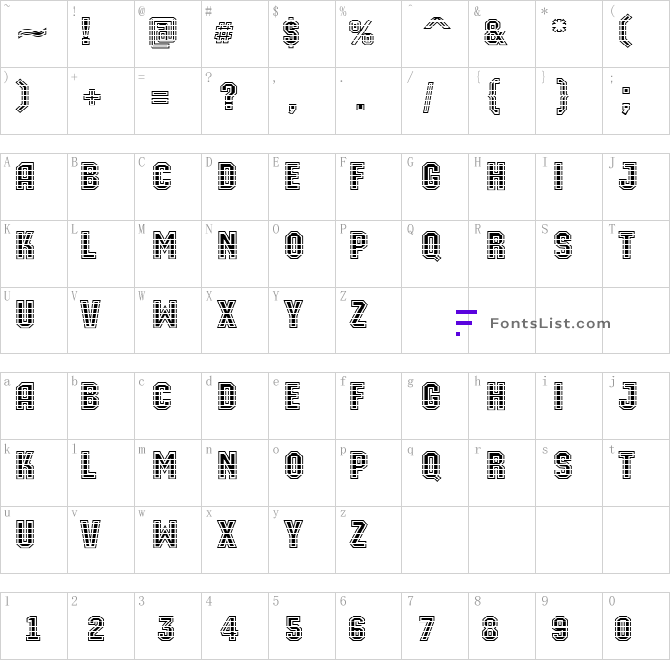
a_MachinaOrtoMltGr-Bold.ttf is a very beautiful artistic font, a_MachinaOrtoMltGr-Bold.ttf is widely used in the design and printing of various books and pictures,a_MachinaOrtoMltGr-Bold.ttf has a strong visual impact,a_MachinaOrtoMltGr-Bold.ttf is a commonly used font in newspapers, magazines and books, and is used in posters, e-commerce Poster design, store design, logo design, font design and other fields.a_MachinaOrtoMltGr-Bold.